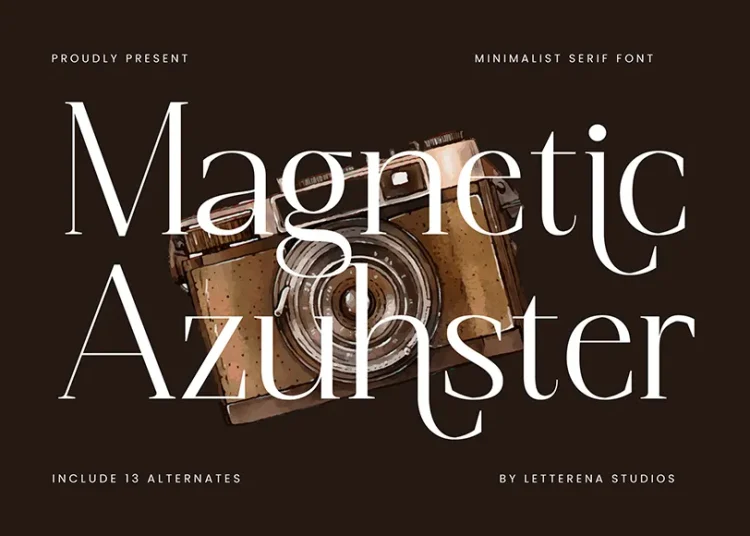
Magnetic Azuhster Font
Magnetic Azuhster is a minimalist luxury serif font designed by Letterena, perfectly crafted to elevate your high-end and elegant projects. With its refined and sleek design, this font is an ideal choice for those looking to add a touch of sophistication and class to their work.
This versatile serif font is suitable for a wide range of applications, making it a go-to option for logos, branding projects, and elegant quotes. Its luxurious appeal also shines through in posters, shopping bags, and t-shirts, offering a stylish and polished look. Additionally, Magnetic Azuhster is perfect for book covers, name cards, invitation cards, and greeting cards, where it can bring a sense of exclusivity and refinement. Whether you’re working on labels, photography projects, or special events, this font provides the perfect blend of minimalism and luxury.